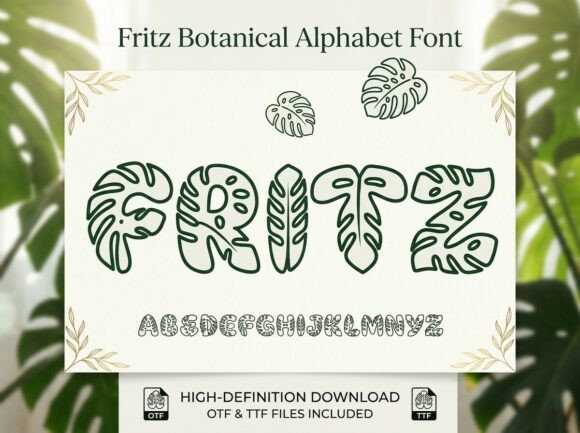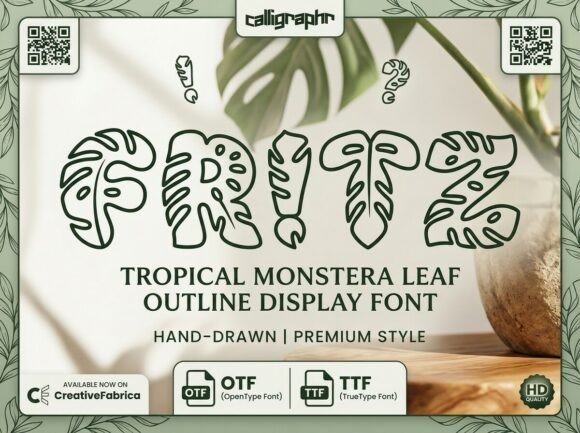
Fritz: The Botanical Alphabet Font That Brings Tropical Gardens to Life
Are you looking for a unique and eye-catching font to add a touch of nature to your design projects? Look no further than Fritz, a stunning botanical alphabet font that brings the lush energy of a tropical garden to your typography. This innovative display font reimagines the alphabet through the silhouettes of exotic foliage, including iconic Monstera leaves and palm fronds, creating a truly one-of-a-kind visual experience.
The Inspiration Behind Fritz
Fritz is more than just a font – it’s a design statement that celebrates the beauty of the natural world. The brainchild of a talented type designer, Fritz was created to evoke the vibrant, organic feel of a tropical garden. By using the silhouettes of exotic leaves and foliage, the designer aimed to craft a font that would bring a sense of freshness and vitality to any design project.
Design Features of Fritz
Fritz boasts a range of design features that make it perfect for eco-friendly branding, botanical garden signage, summer event posters, and nature-themed editorial layouts. Some of the key features of this unique font include:
- Organic, hand-drawn outlines: Fritz features delicate, hand-drawn outlines that give the font a natural, effortless feel.
- Exotic foliage silhouettes: Each character in the Fritz font is crafted from the silhouettes of exotic leaves and foliage, including Monstera leaves and palm fronds.
- Unique character designs: Every character in the Fritz font is carefully crafted to be distinct and visually appealing, making it perfect for display typography.
Uses for Fritz
Fritz is an incredibly versatile font that can be used in a wide range of design projects. Some ideas for using Fritz include:
- Eco-friendly branding: Use Fritz to create a brand identity that reflects your commitment to sustainability and the environment.
- Botanical garden signage: Bring the beauty of the botanical garden to your signage with Fritz’s lush, tropical feel.
- Summer event posters: Create eye-catching posters for summer events, such as music festivals or outdoor concerts, with Fritz’s fun and vibrant feel.
- Nature-themed editorial layouts: Use Fritz to add a touch of natural beauty to your editorial layouts, such as magazine articles or blog posts.
Tips for Using Fritz
To get the most out of Fritz, here are a few tips to keep in mind:
- Experiment with different colors: Fritz looks great in a range of colors, from bright and bold to muted and earthy.
- Play with texture and pattern: Add depth and interest to your design by combining Fritz with texture and pattern.
- Mix and match with other fonts: Fritz pairs well with a range of other fonts, so don’t be afraid to experiment with different combinations.
Fritz is a truly unique and inspiring font that brings the beauty of the natural world to your design projects. With its organic, hand-drawn outlines and exotic foliage silhouettes, Fritz is perfect for eco-friendly branding, botanical garden signage, summer event posters, and nature-themed editorial layouts. Whether you’re a designer, craft, or simply someone who appreciates the beauty of nature, Fritz is a font that’s sure to delight.